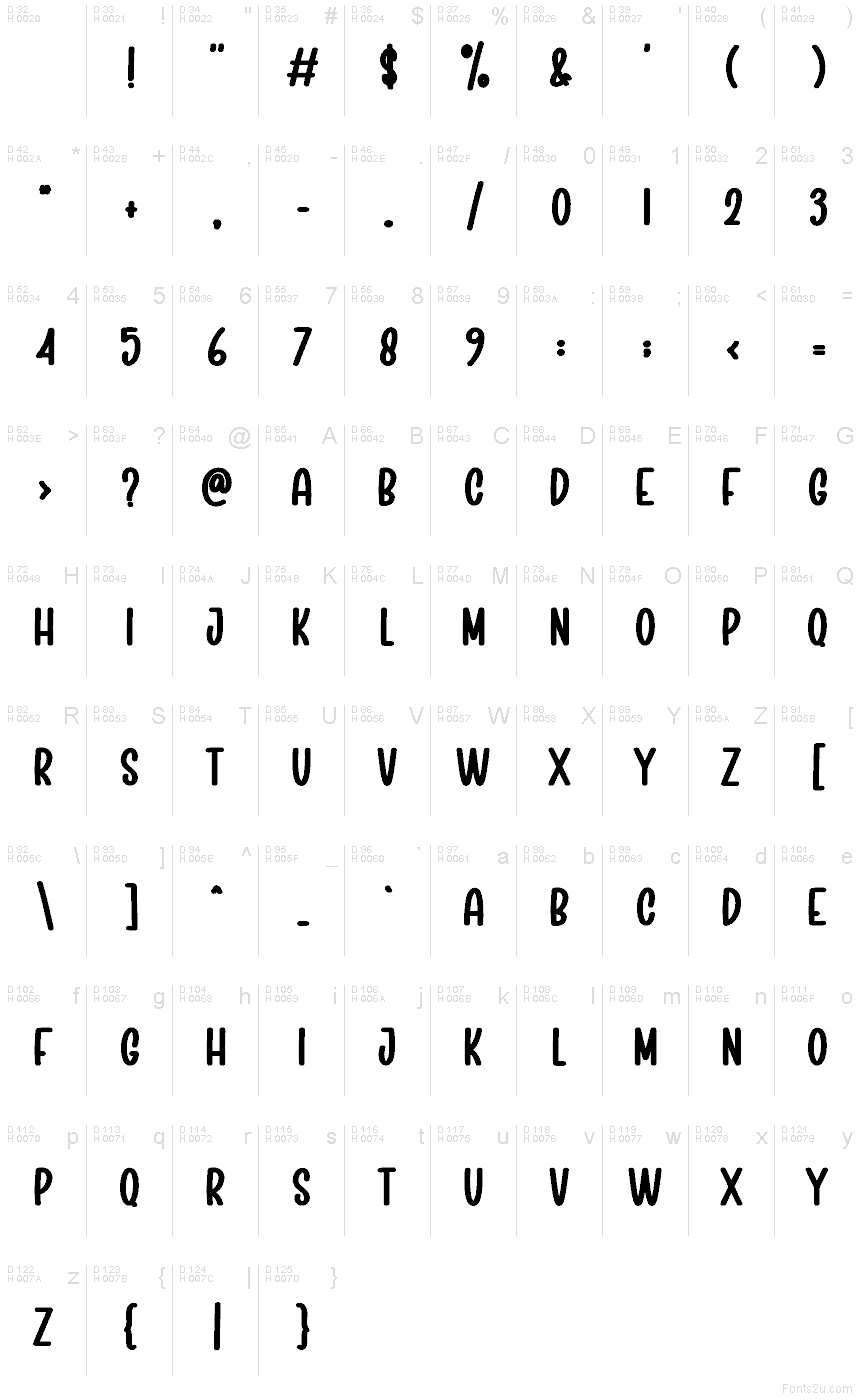
Minimalist Handmade
Minimalist Handmade font by Scratchones is a brush typeface with a handcrafted appearance and modern aesthetic. Its condensed letters appear organic and bring an approachable vibe, which forms the perfect addition to labels and other items with casual tones.